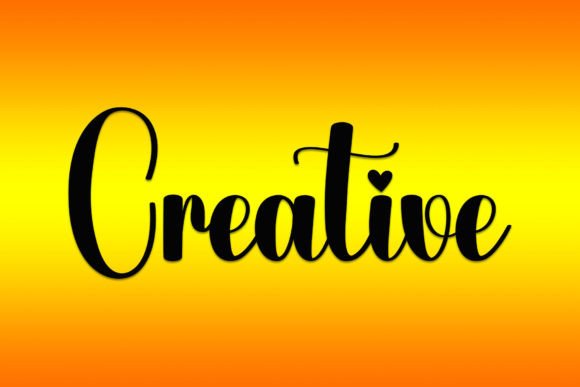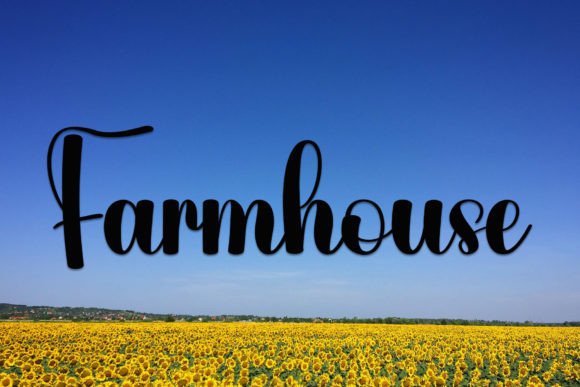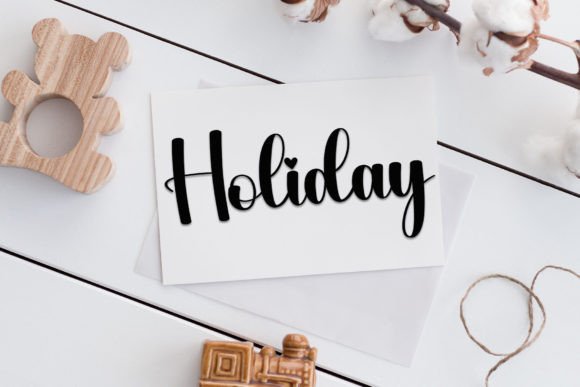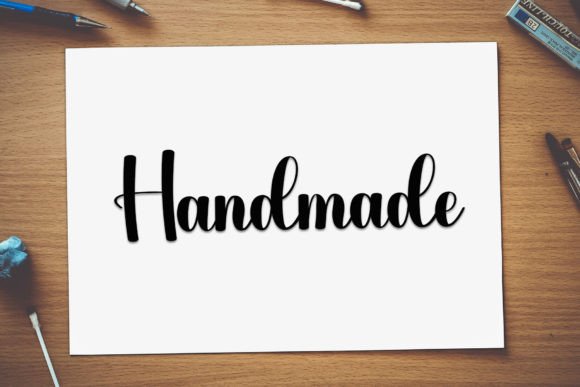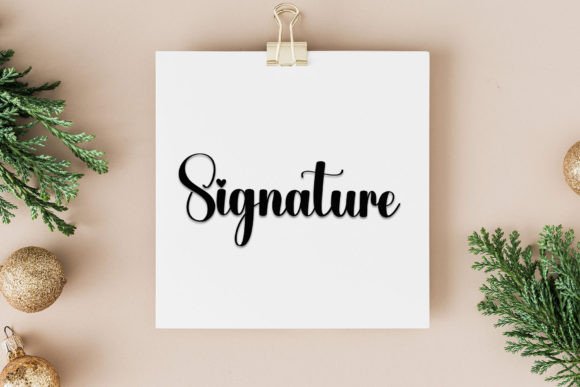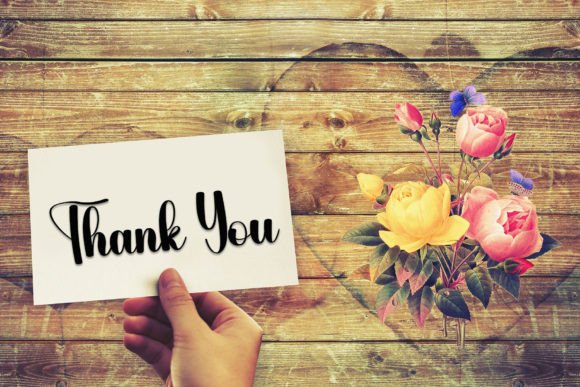
Introducing Breeder Font: Elevate Your Designs with Elegance
Are you on the hunt for a font that adds a touch of sophistication and elegance to your projects? Look no further than Breeder Font, a stunning handwritten font that is sure to capture your heart. With its unique and timeless style, Breeder Font is the perfect choice for designers and crafters looking to create spectacular designs that stand out from the crowd.
The Beauty of Breeder Font
Breeder Font is a neat and beautiful handwritten font that boasts an elegant touch, making it ideal for a wide range of projects. Whether you’re working on a logo, branding materials, or marketing collateral, this font is sure to impress. Its incredibly distinct style is both classic and modern, allowing you to create designs that are both timeless and trendy.
What Makes Breeder Font So Special?
So, what sets Breeder Font apart from other fonts on the market? Here are just a few reasons why designers and crafters are falling in love with this beautiful font:
• Elegant and Refined: Breeder Font features a sophisticated and elegant design that adds a touch of refinement to any project.
• Unique and Distinct: With its incredibly distinct style, Breeder Font is sure to make your designs stand out from the crowd.
• Timeless Appeal: This font’s classic design ensures that your projects will remain stylish and relevant for years to come.
• Versatile: Breeder Font is perfect for a wide range of projects, from logos and branding materials to marketing collateral and more.
How to Use Breeder Font in Your Designs
Breeder Font is incredibly easy to use and can be incorporated into your designs in a variety of ways. Here are a few tips to get you started:
• Pair it with Other Fonts: Breeder Font pairs perfectly with other fonts, making it easy to create stunning contrast and visual interest in your designs.
• Experiment with Sizes and Colors: Don’t be afraid to experiment with different sizes and colors to add depth and dimension to your designs.
• Use it for Headings and Titles: Breeder Font is perfect for headings and titles, adding a touch of elegance and sophistication to your designs.
Breeder Font is a must-have for designers and crafters looking to elevate their designs and add a touch of elegance. Whether you’re working on a personal project or a client’s, this font is sure to impress. With its unique and timeless style, Breeder Font is the perfect choice for:
• Logos and Branding: Create a lasting impression with a custom logo and branding materials that feature Breeder Font.
• Marketing Collateral: Add a touch of sophistication to your marketing materials, including brochures, flyers, and more.
• Stationery and Invitations: Create beautiful stationery and invitations that feature Breeder Font’s elegant design.
In conclusion, Breeder Font is a stunning handwritten font that is sure to capture your heart. With its elegant and refined design, unique and distinct style, and timeless appeal, this font is perfect for designers and crafters looking to create spectacular designs. Whether you’re working on a logo, branding materials, or marketing collateral, Breeder Font is the perfect choice. So why wait? Fall in love with Breeder Font today and elevate your designs to new heights!